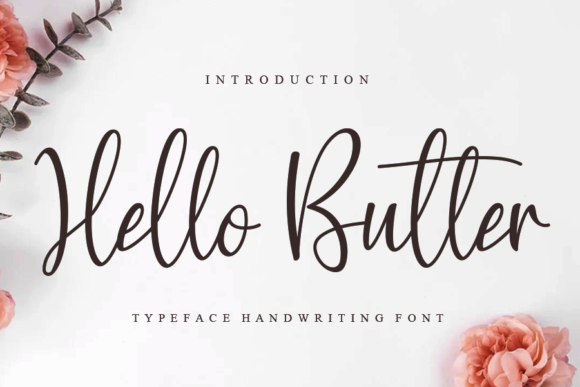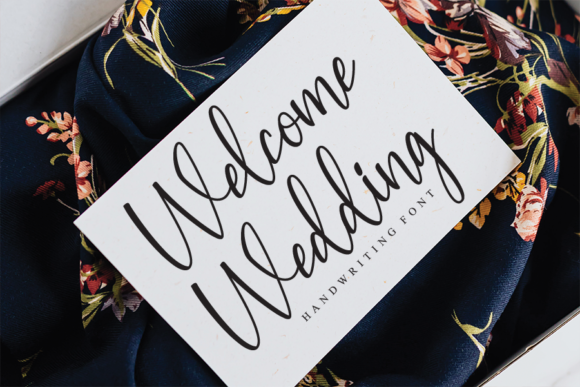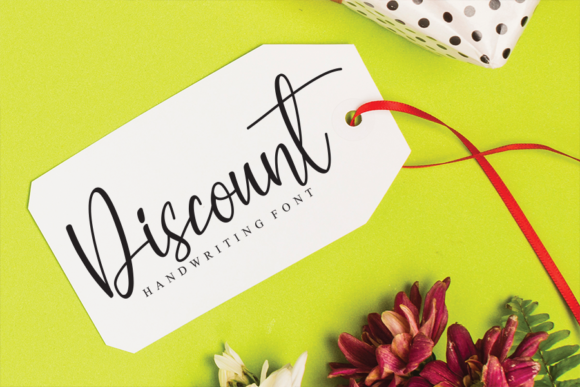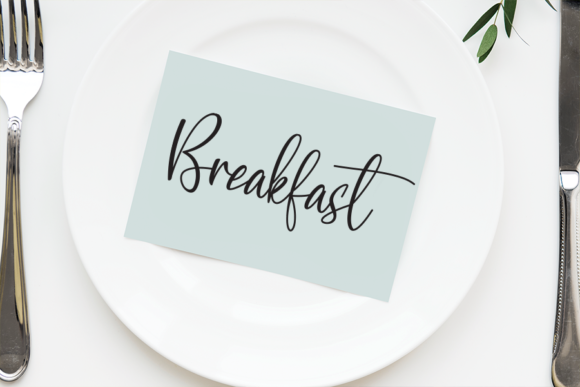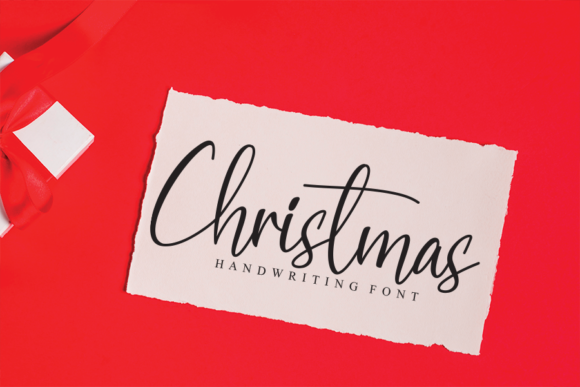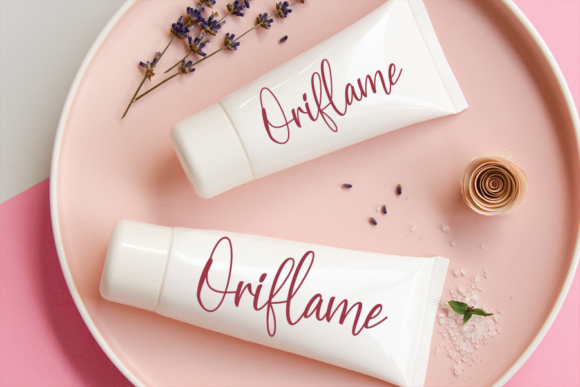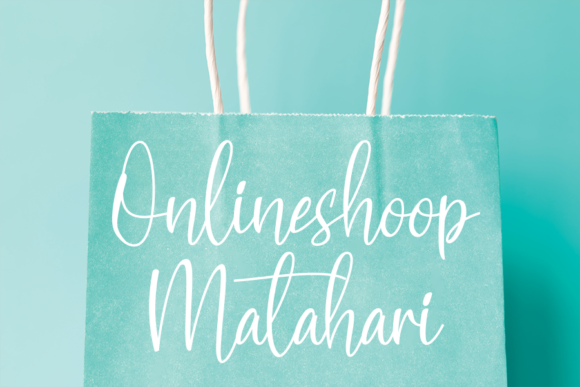
Hello Butter Font
Introducing “Hello Butter,” a stunning handwritten script font that exudes elegance and beauty. This font is perfect for adding a touch of sophistication and charm to a wide range of design projects, from wedding invitations and thank you cards to quotes, greeting cards, logos, business cards, and more.
The graceful and flowing nature of “Hello Butter” makes it an ideal choice for wedding invitations. Its handwritten style adds a personal and romantic touch to your invitations, setting the tone for a memorable and special event. Whether you’re designing invitations for a traditional wedding or a modern celebration, “Hello Butter” will bring a touch of elegance to your designs.
Expressing gratitude becomes even more heartfelt with the use of “Hello Butter” on thank you cards. Its delicate and beautiful look enhances the sincerity and appreciation of your message, making it even more memorable for the recipient. Whether it’s for personal thank you cards or professional notes of gratitude, “Hello Butter” adds a touch of warmth and sophistication.
Quotes take on a whole new level of beauty with the help of “Hello Butter.” The elegant and flowing letters of this font bring your words to life, capturing attention and evoking emotion. Whether you’re creating social media graphics, quote posters, or inspirational prints, “Hello Butter” will make your quotes stand out and leave a lasting impression.
Greeting cards become works of art with “Hello Butter.” The font’s elegant and beautiful look adds a touch of sophistication to your card designs, making them truly special. Whether it’s for birthdays, anniversaries, or any occasion that calls for heartfelt wishes, “Hello Butter” will make your greeting cards truly memorable.
When it comes to branding, “Hello Butter” adds a touch of elegance and personality to your logos. Its handwritten style conveys a sense of authenticity and uniqueness, helping your brand stand out from the competition. Whether you’re creating a logo for a boutique, a creative agency, or a personal brand, “Hello Butter” will make a lasting impression.
Business cards designed with “Hello Butter” make a professional and memorable statement. The font’s elegant and handwritten look adds a touch of sophistication to your contact information, leaving a positive impression on potential clients and business partners. Your business cards will stand out and be remembered.
In summary, “Hello Butter” is an elegant and beautiful handwritten script font that adds a touch of sophistication and charm to various design projects. Its flowing and graceful letters make it perfect for wedding invitations, thank you cards, quotes, greeting cards, logos, business cards, and more. Fall in love with the elegance of “Hello Butter” and let it elevate your designs to new levels of beauty and impact.